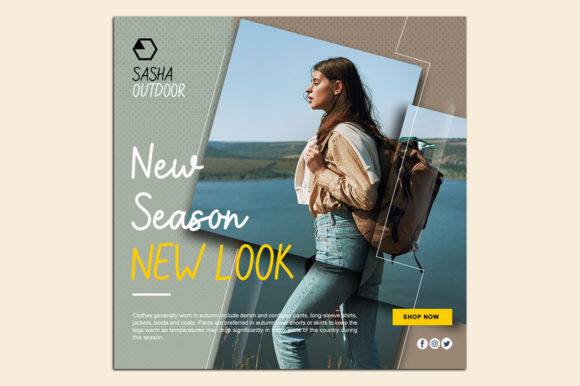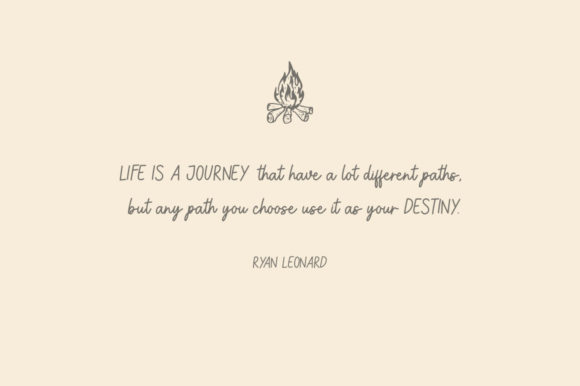
Adventure Await Font
Adventure Await is a cute and simple lettered handwritten font that can be used for all chalkboard quotes or teaching material! Its authentic look will add a personal and realistic feel to your designs.